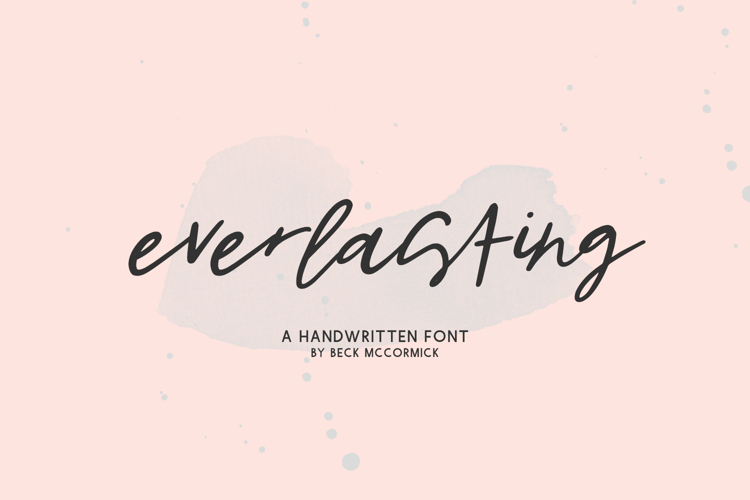
Introducing Everlasting, a handwriting font that features alternate characters.
Everlasting is best for:
- digital planners & apps like Goodnotes
- website design + website accents, blog design
- wedding invitations, wedding favors, or wedding decor
- farmhouse decor and crafts
- modern graphic tee shirt design & other apparel
Everlasting includes:
- 26 alternates
- 2 ligatures - ea, st